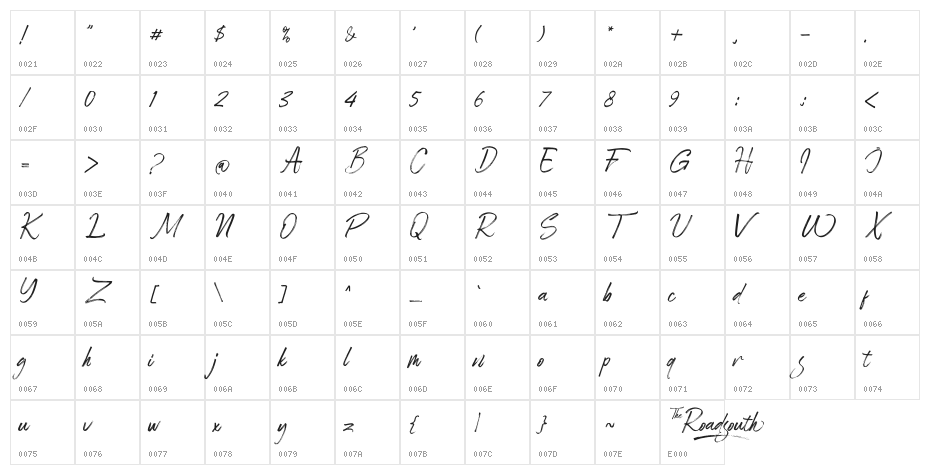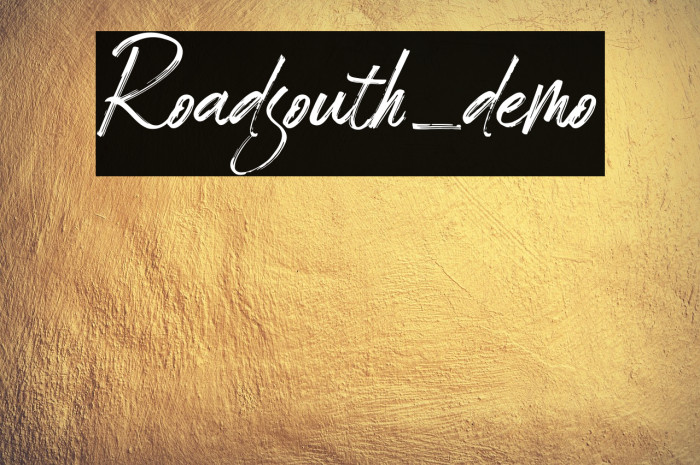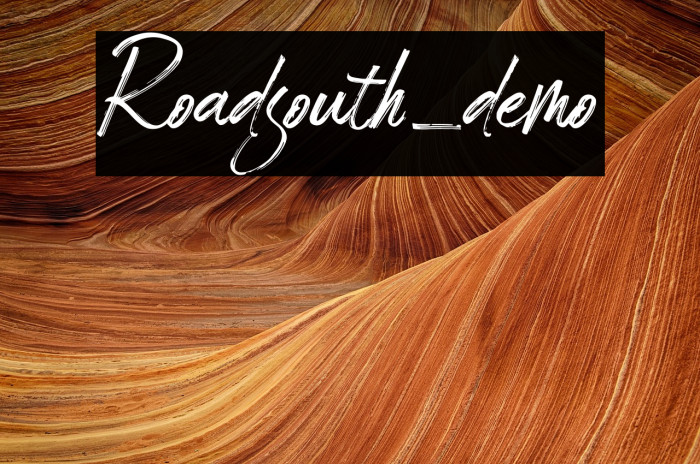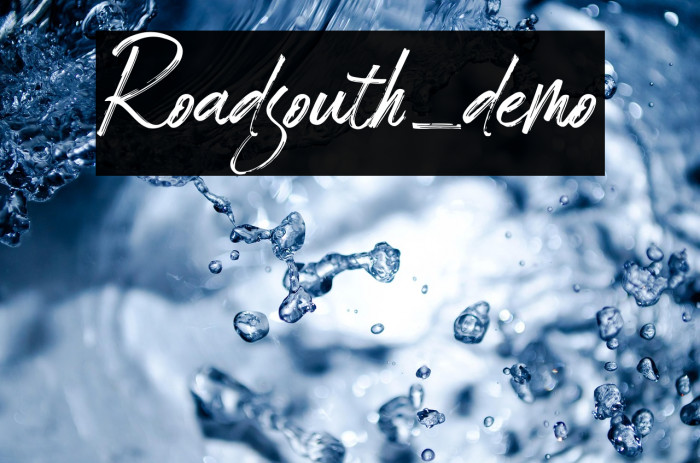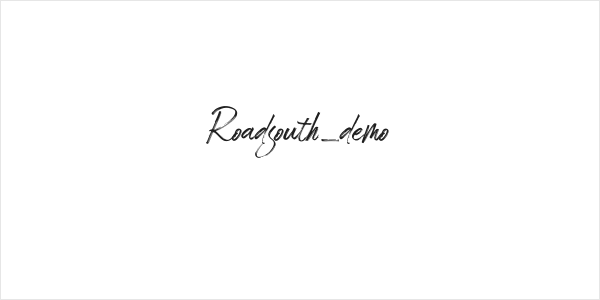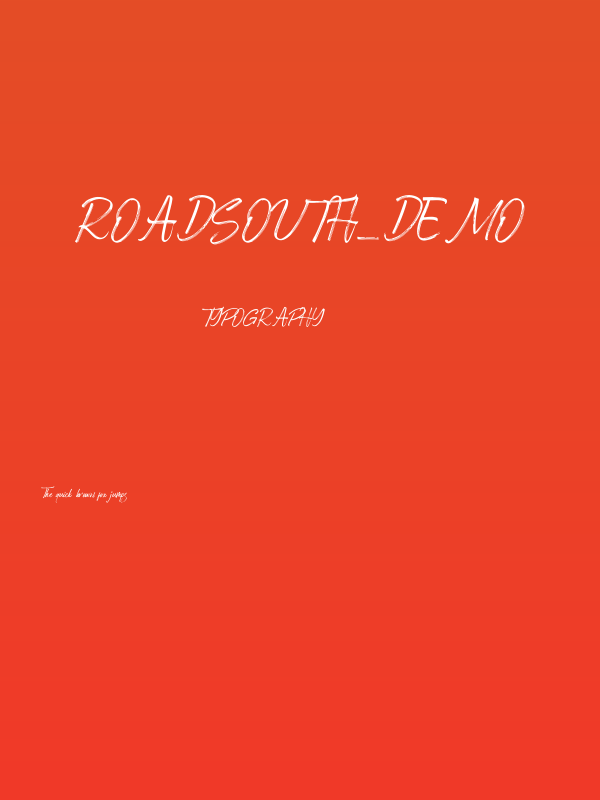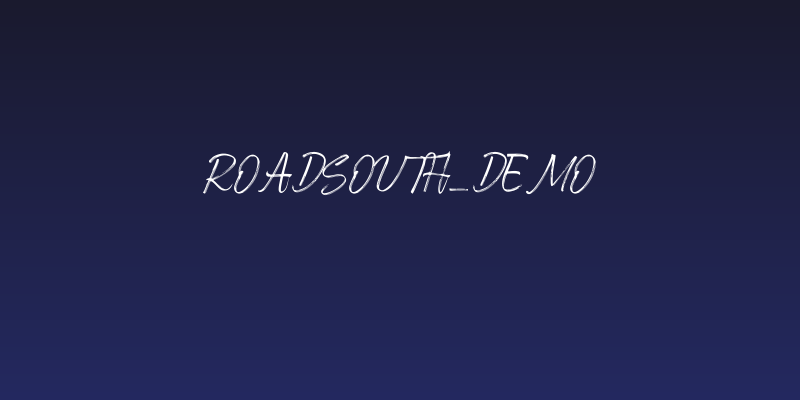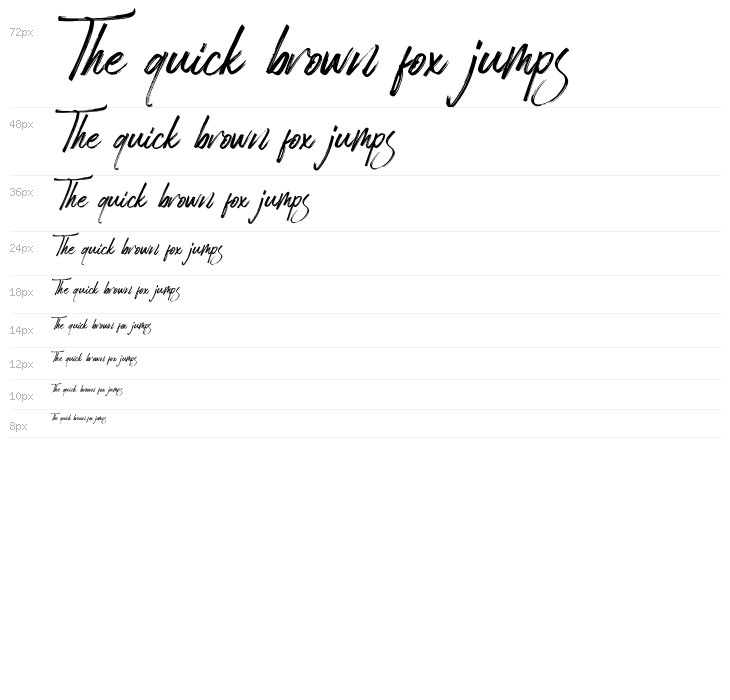
Roadsouth_demo Font
Roadsouth_demo Description
This font exudes a dynamic and energetic style, characterized by its fluid, cursive script that mimics the natural flow of handwriting. The strokes are varied, with a noticeable contrast between thick and thin lines, giving it a lively and expressive appearance. The uppercase letters are bold and sweeping, while the lowercase letters maintain a consistent rhythm, enhancing readability. The numerals and special characters are crafted with the same attention to detail, ensuring a cohesive look across all elements. This font is ideal for projects that require a personal touch, such as invitations, greeting cards, or branding materials that aim to convey elegance and creativity.
| Proposed Projects | Ideal for invitations, greeting cards, branding, and creative projects. |